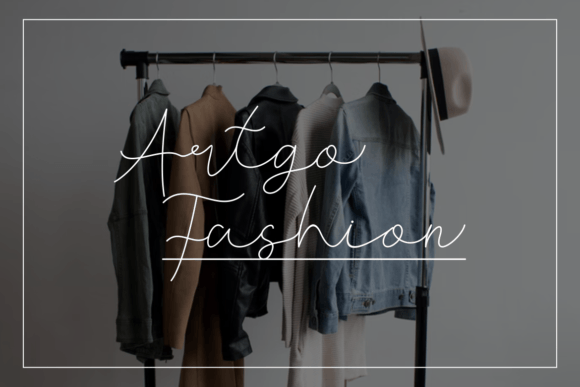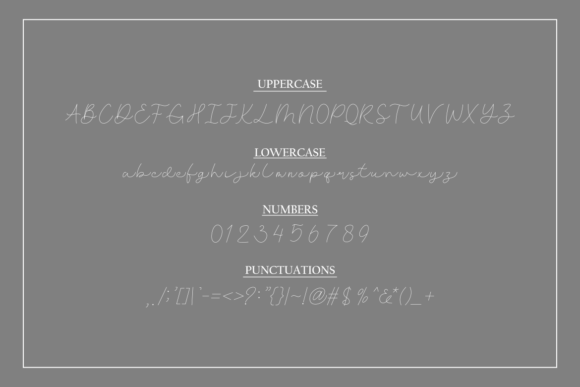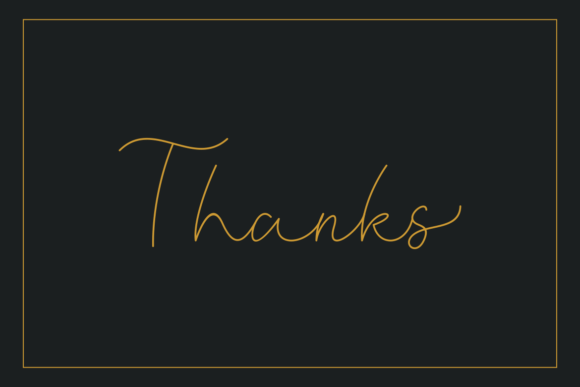
Introducing First Signature Font: Elevate Your Designs with Elegance
Are you tired of using the same old fonts in your designs? Look no further! First Signature Font is a beautiful, delicate, and elegant handwritten font that is sure to take your creative projects to the next level. With its flowing lines and well-balanced characters, this font is perfect for designers and crafters looking to add a touch of sophistication to their work.
The Characteristics of First Signature Font
First Signature Font is a unique and versatile font that boasts a range of characteristics that make it perfect for a wide range of designs. Some of its key features include:
- Delicate and elegant: First Signature Font has a delicate and elegant feel that is perfect for creating sophisticated and refined designs.
- Flowing lines: The font’s flowing lines give it a sense of movement and fluidity, making it perfect for designs that require a sense of dynamism.
- Well-balanced characters: Each character in the font is carefully crafted to ensure that they are well-balanced and visually appealing.
Why Choose First Signature Font?
- Versatility: First Signature Font is a versatile font that can be used in a wide range of designs, from wedding invitations and party decorations to branding and advertising materials.
- Elegance: The font’s elegant and refined feel makes it perfect for designs that require a sense of sophistication and luxury.
- Easy to read: Despite its delicate and flowing lines, First Signature Font is easy to read, making it perfect for designs that require a clear and concise message.
How to Use First Signature Font in Your Designs
- Pair it with bold fonts: Pair First Signature Font with bold and modern fonts to create a striking contrast that adds visual interest to your design.
- Use it for headings and titles: First Signature Font is perfect for headings and titles, where its elegant and refined feel can really shine.
- Experiment with colors: Don’t be afraid to experiment with different colors and textures to add depth and visual interest to your design.
First Signature Font is perfect for designers and crafters who are looking to add a touch of elegance and sophistication to their work. Whether you’re creating:
- Wedding invitations and decorations: First Signature Font is perfect for creating beautiful and elegant wedding invitations, decorations, and other materials.
- Branding and advertising materials: The font’s versatile and refined feel makes it perfect for use in branding and advertising materials, such as logos, brochures, and flyers.
- Digital and print designs: First Signature Font can be used in a wide range of digital and print designs, from social media graphics and blog posts to posters and business cards.